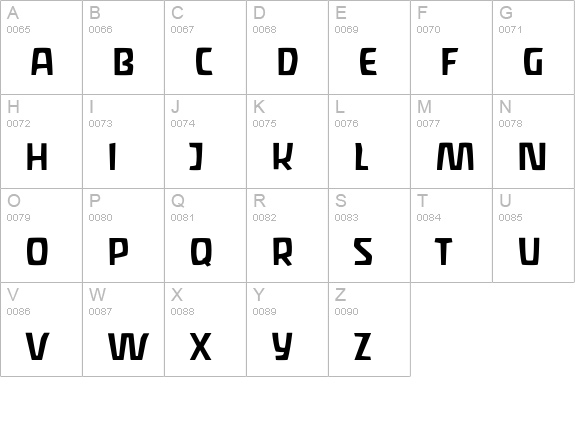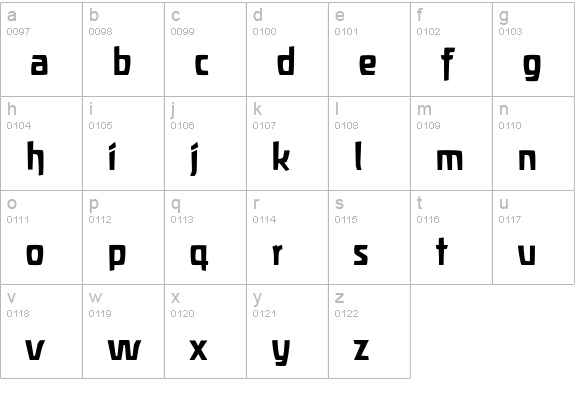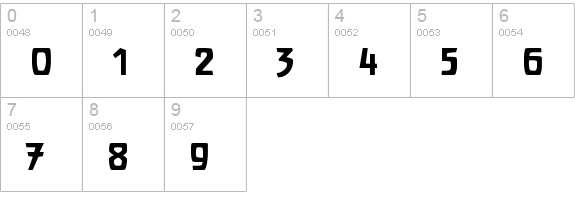
Liant-Bold Font Details
Liant-Bold is a strong, high-contrast variant in the Liant typeface family \xE2\x80\x94 well suited to headlines, attention-grabbing titles, and strong calls-to-action.
Liant-Bold is a striking and modern font that exudes confidence and sophistication. With its bold and clean lines, this typeface commands attention and adds a touch of elegance to any design project. The strong presence of Liant-Bold makes it ideal for headlines, logos, and branding materials where you want to make a bold statement. The best part is that Liant-Bold is completely free to download at FontsMarket.com. It is a versatile font that can be used in a variety of design applications, from print to digital media. Whether you are working on a website, poster, or packaging design, Liant-Bold will help you achieve a polished and professional look. Don't miss out on this fantastic font that combines style and functionality - download Liant-Bold today and elevate your designs to the next level.